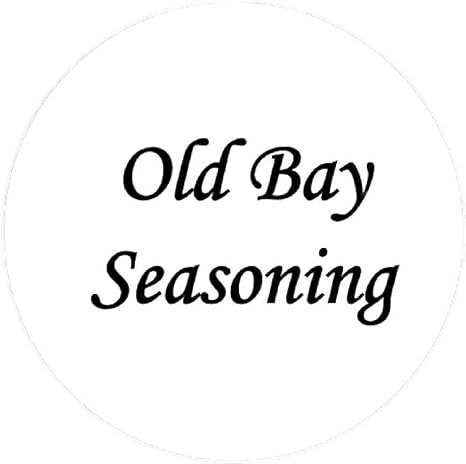
Monotype Corsiva Font
Monotype Corsiva Font is a popular script display typeface This special font was carefully designed by Patricia Saunders and it was released by Monotype Font foundry in 1995 And do you know, Patricia Saunders is a famous designer with many popular fonts such as Dokchampa, Columbus, Arial, and much more.
Monotype corsiva font. Internet Stitch is happy to present Monotype Corsiva machine embroidery font which has Upper Case 26 letters Lower Case 26 letters Numerals 09 Symbols Some Included included If you would like to view more embroidery fonts and alphabets please search our embroidery fonts page. Monotype Corsiva Font is one of the most popular script typeface these days Patricia Saunders took the charge for designing it and releases it via Monotype Font foundry for the first time during 1995 Patricia Saunders is a keen female designer She is popular for designing many famous fonts like Arial, Columbus, Dokchampa and many others. Monotype Corsiva Font is a popular script display typeface This special font was carefully designed by Patricia Saunders and it was released by Monotype Font foundry in 1995 And do you know, Patricia Saunders is a famous designer with many popular fonts such as Dokchampa, Columbus, Arial, and much more.
Monotype Corsiva Font is the new and lovely italic font typeface that is available in 79 languages It can be used in advertising and greeting cards It refers to a group of historicform serifs based on the designs of sixteenthcentury French engraver Claude Marker. I have a gradient fill over the text with a thin outline stroke when I imported it, it. Monotype Corsiva by Internet Stitch and other embroidery fonts available at EmbroideryDesignscom.
Monotype Corsiva download free in category script, calligraphy Font Style Regular Monotype Corsiva Font Author Monotype Type Drawing Office Patricia Saunders. Monotype Corsiva is an italic typeface made in the style of the early Italian cursives as exemplified by the work of the writing master, Ludovico degli Arrighi, in the sixteenth century The capitals of the Monotype Corsiva font are of swash design, with characteristic flourishes, designed primarily for use as initial letters. Preview Monotype Corsiva font from EagleFontscom Download free TrueType M Available in TrueType (TTF) format for Windows & Mac Preview Monotype Corsivattf font by typing your own text Biggest searchable database of free TrueType fonts.